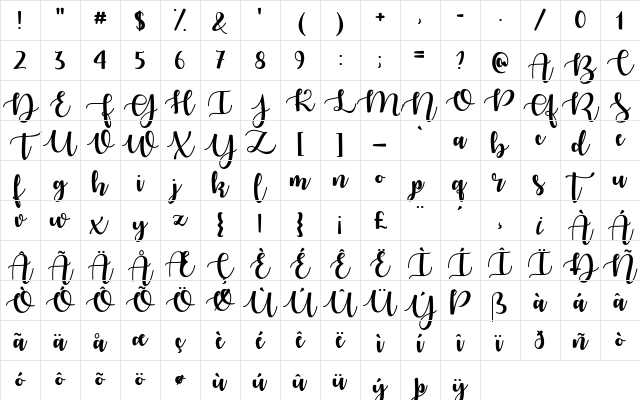
Autumn in November Regular
Foundry: Misti's Fonts
Designer: Misti's Fonts
Design Context for Autumn in November
Autumn in November is a composed and adaptable typeface that performs quietly and consistently across a wide range of design contexts.